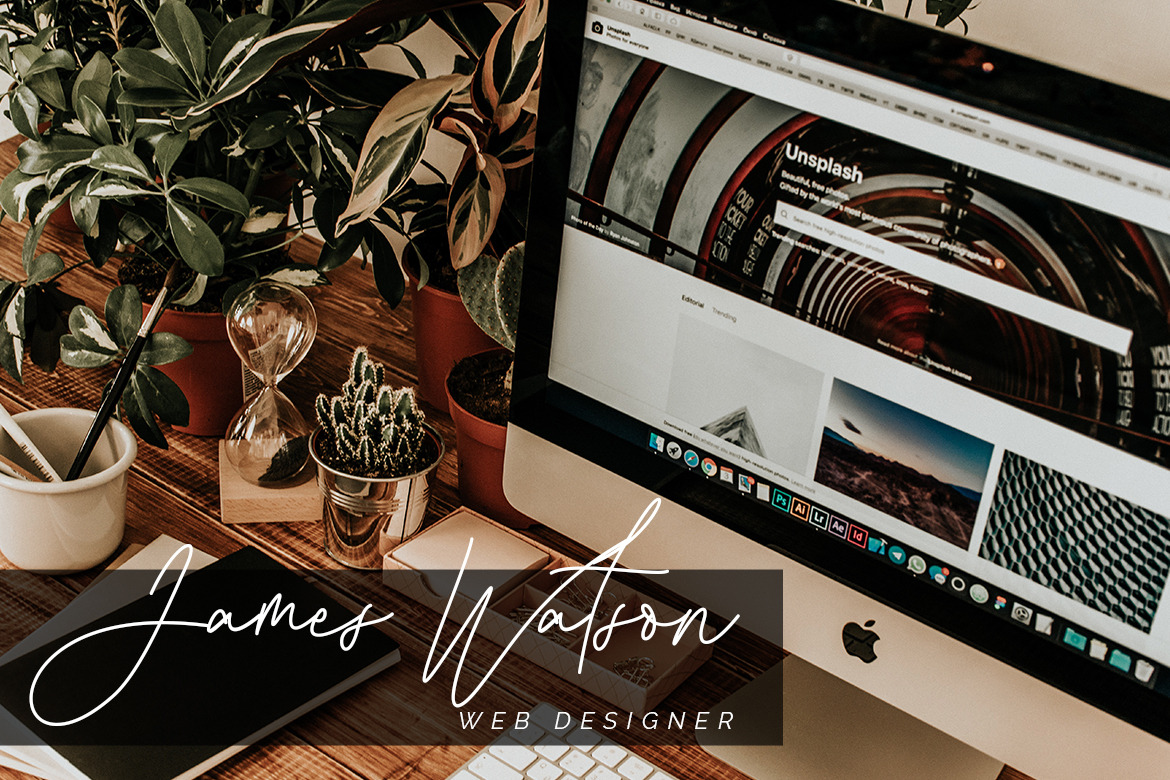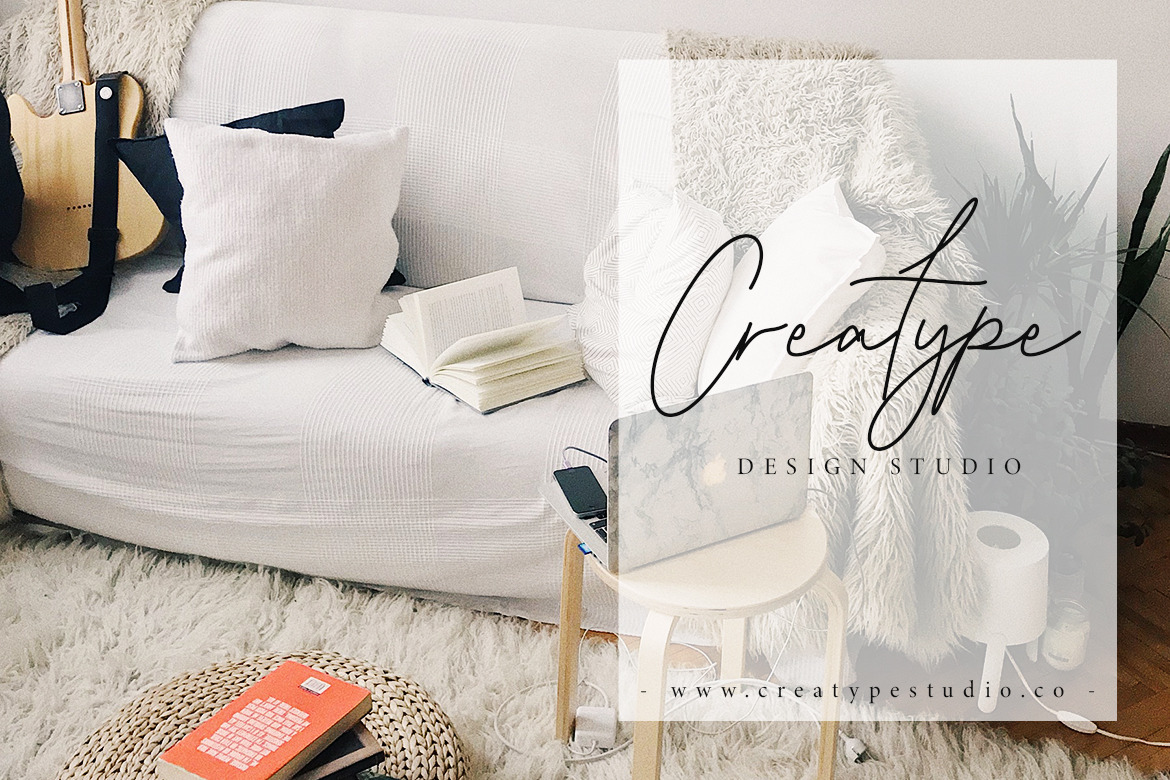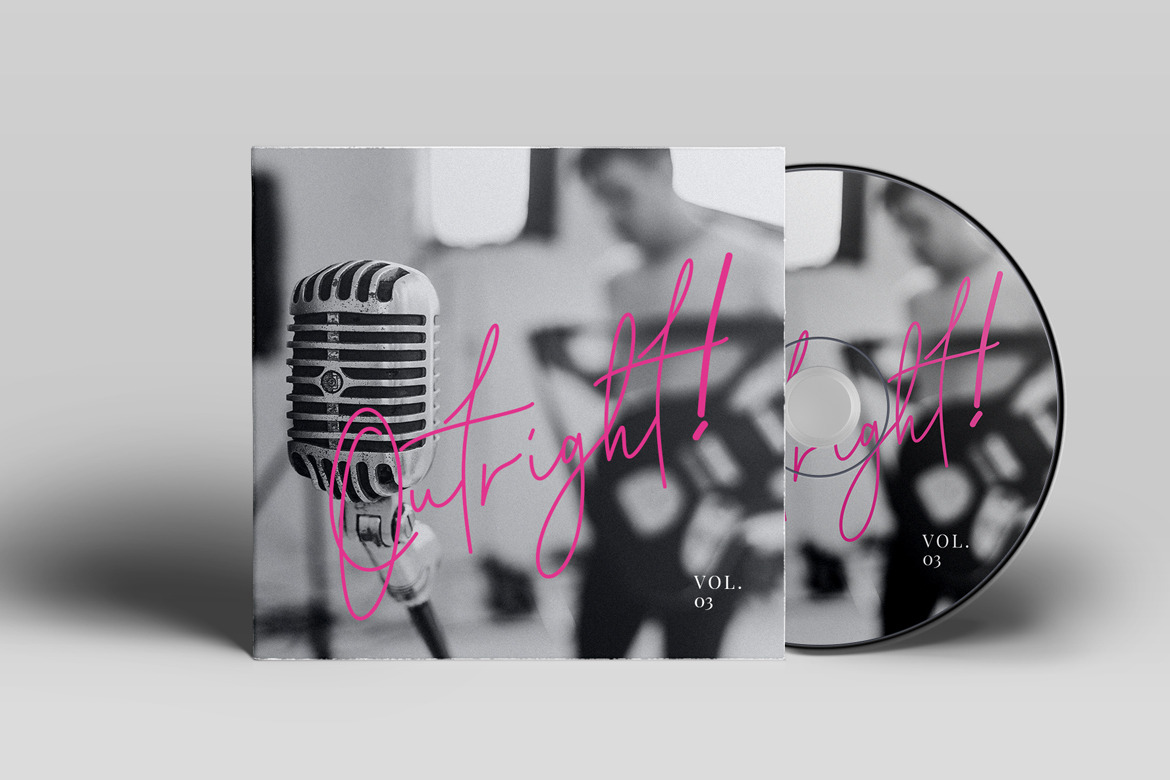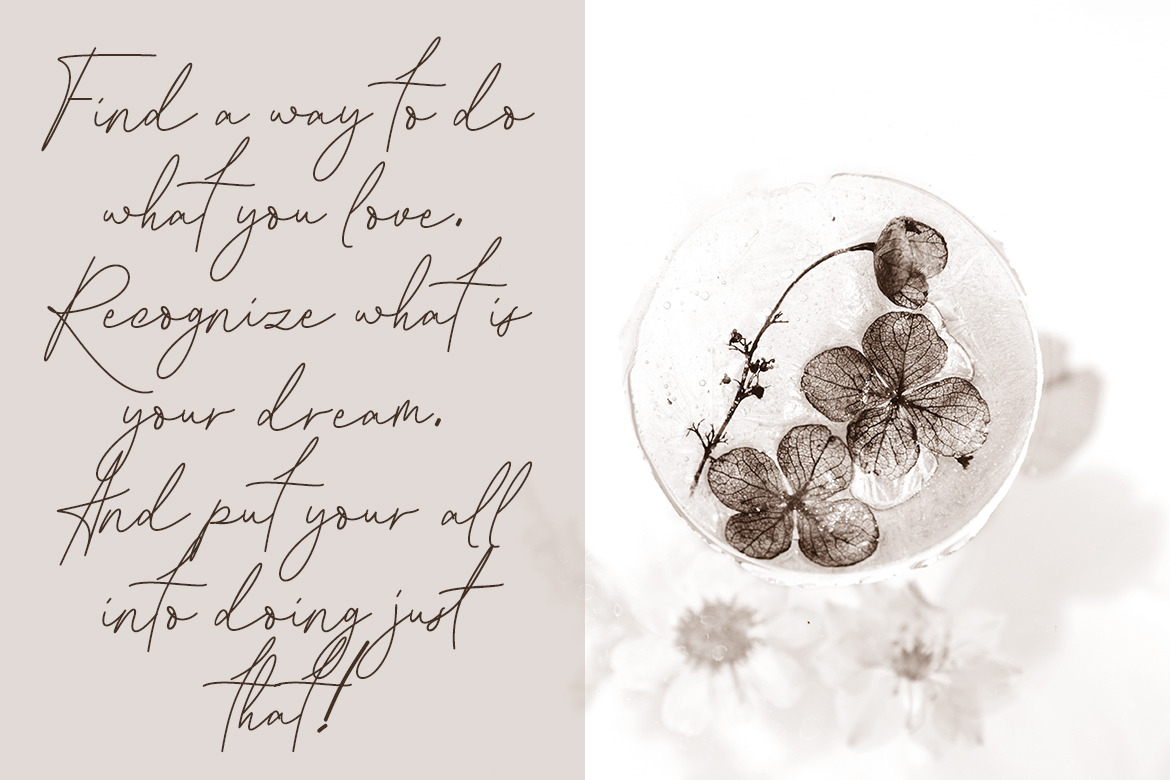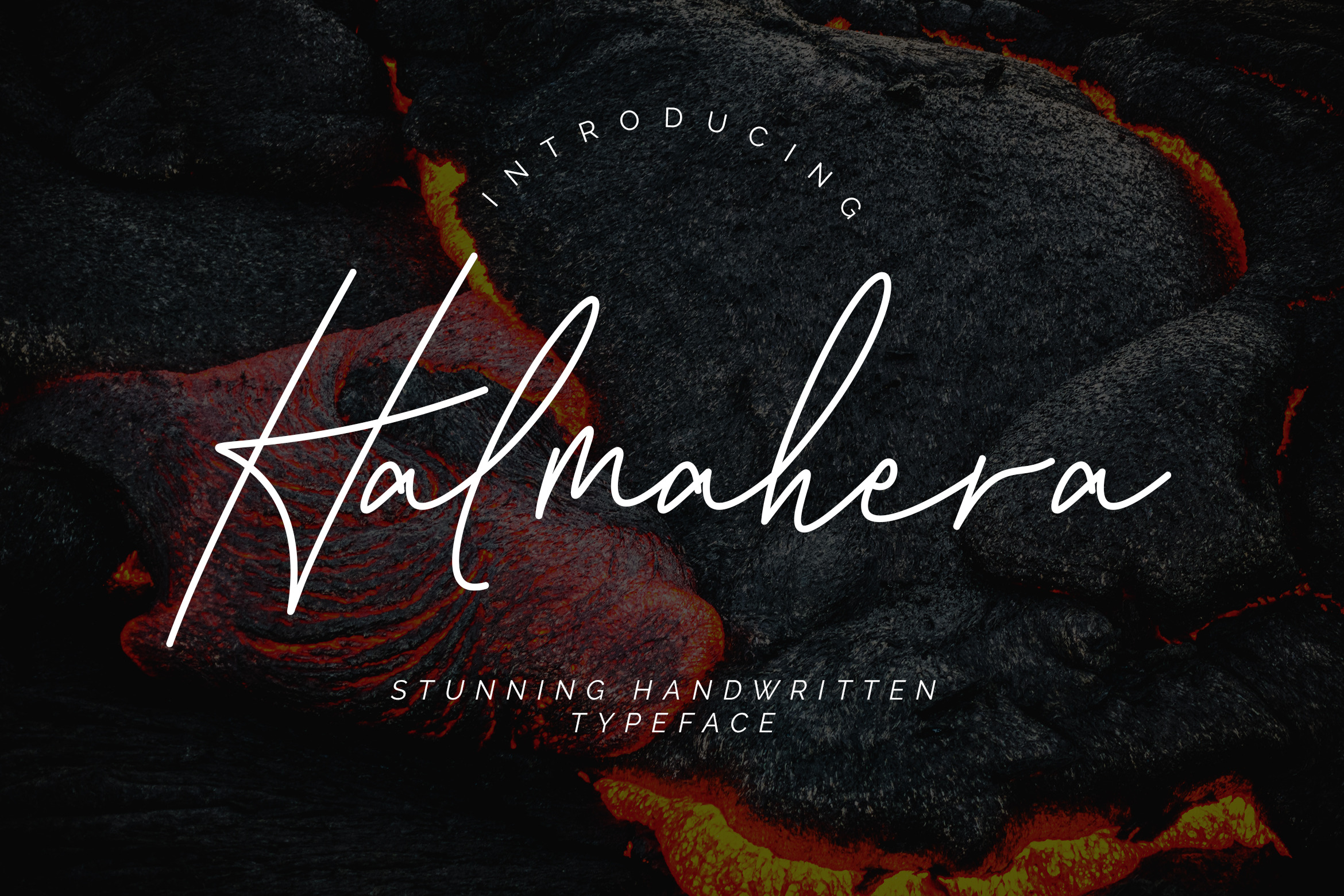
Halmahera is a fresh signature font with handwritten feel make this font looks natural, modern, and perfect for any awesome projects. Halmahera is perfect for branding projects, logo, wedding designs, social media posts, advertisements, product packaging, product designs, label, photography, watermark, invitation, stationery and any projects that need handwriting taste. What's Included : * Halmahera (OTF/TTF/WOFF) * Web Fonts * Tons of glyphs * Ligature * Works on PC & Mac * Simple installations * Accessible in the Adobe Illustrator, Adobe Photoshop, Adobe InDesign, even work on Microsoft Word. * PUA Encoded Characters - Fully accessible without additional design software. * Fonts include multilingual support for; ä ö ü Ä Ö Ü ß ¿ ¡ Hope you enjoy with our font! | Halmahera Handwritten Wedding Font | Creatype Studio